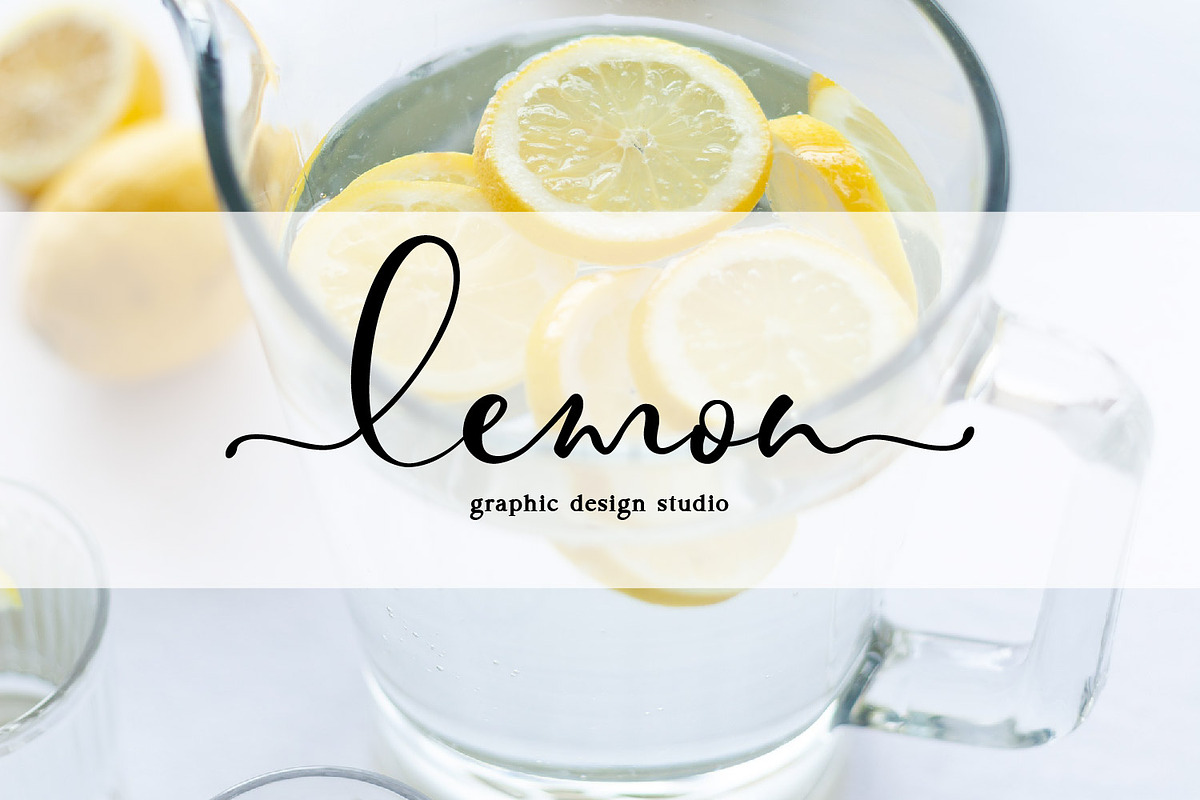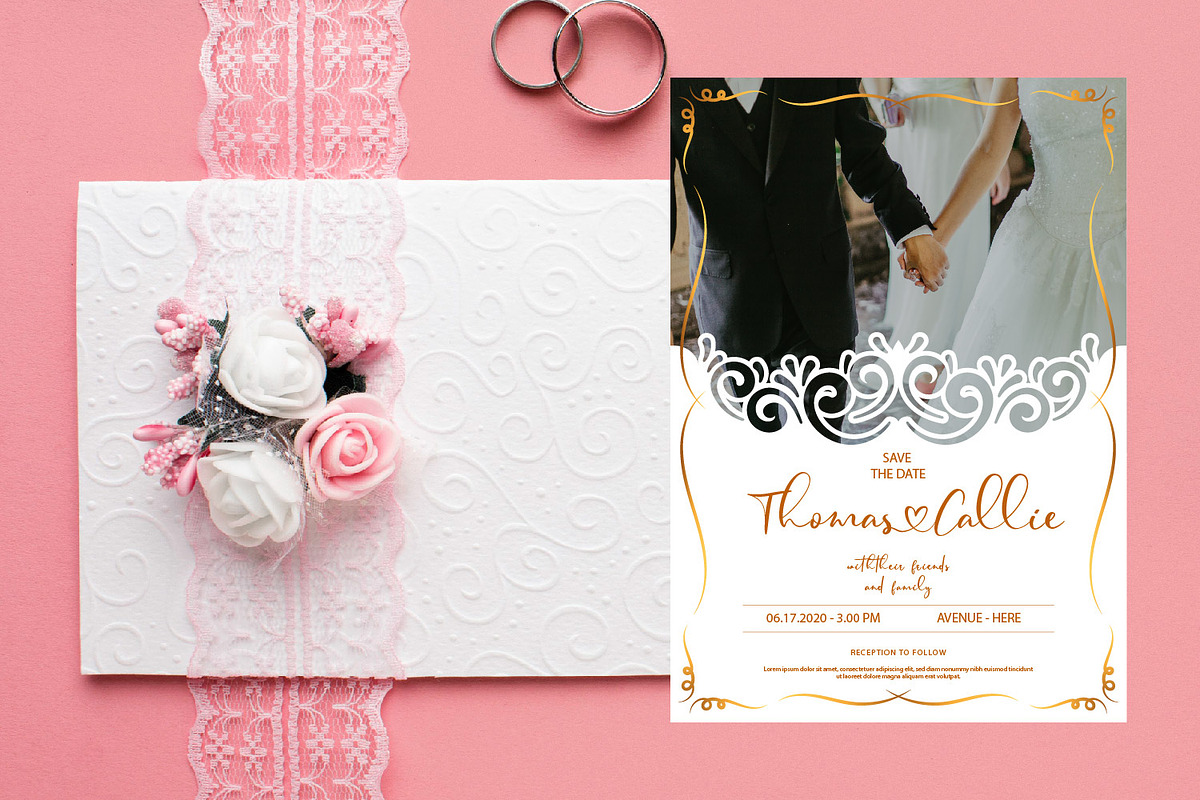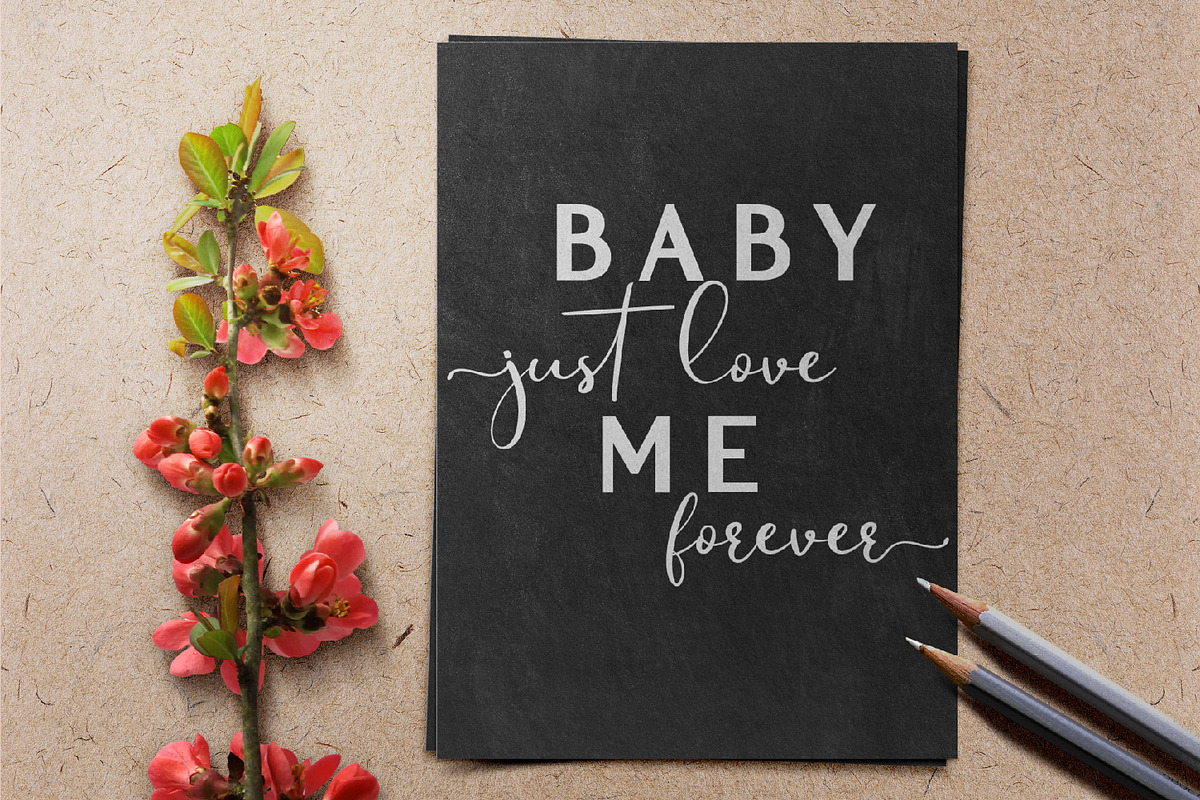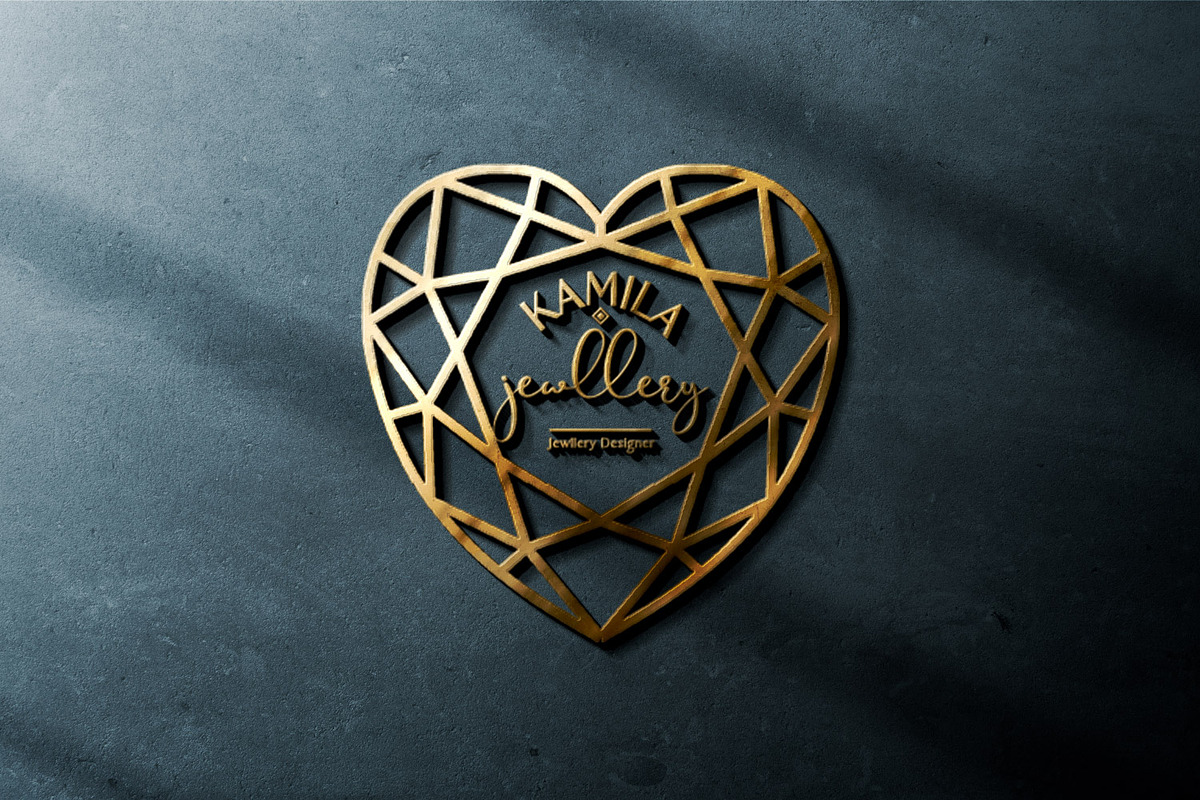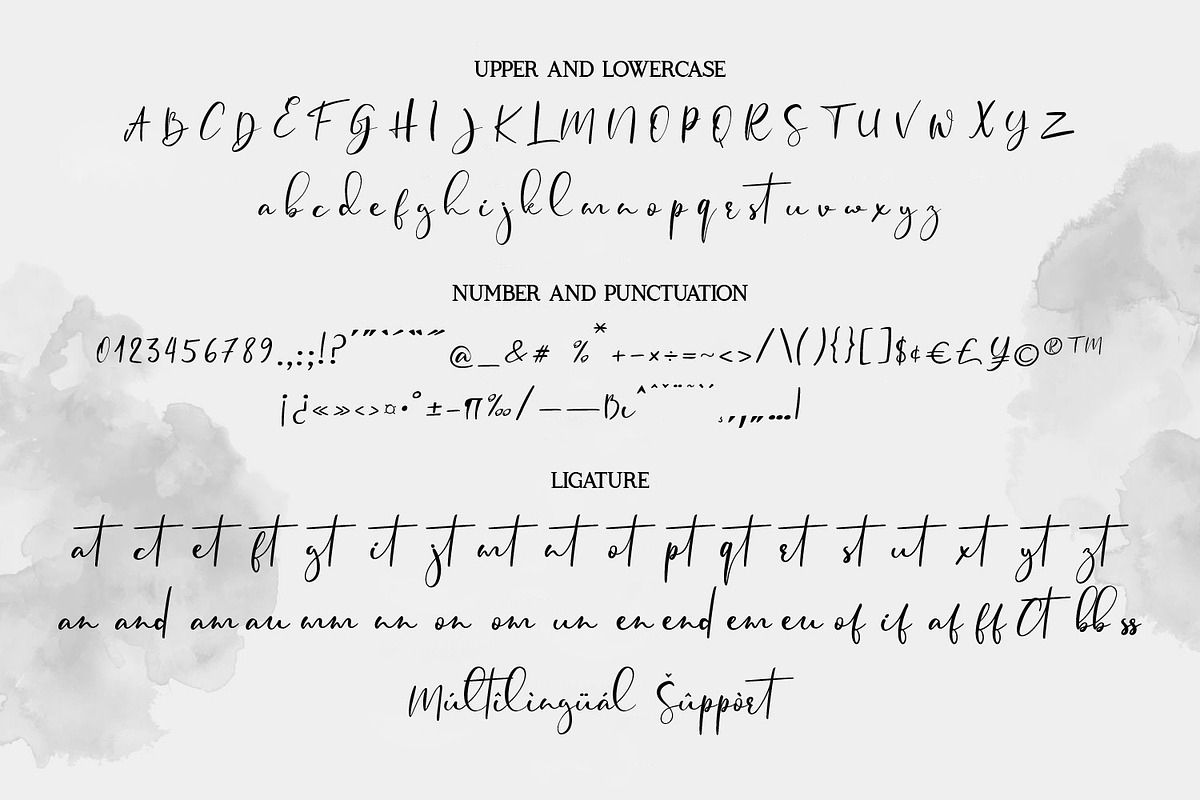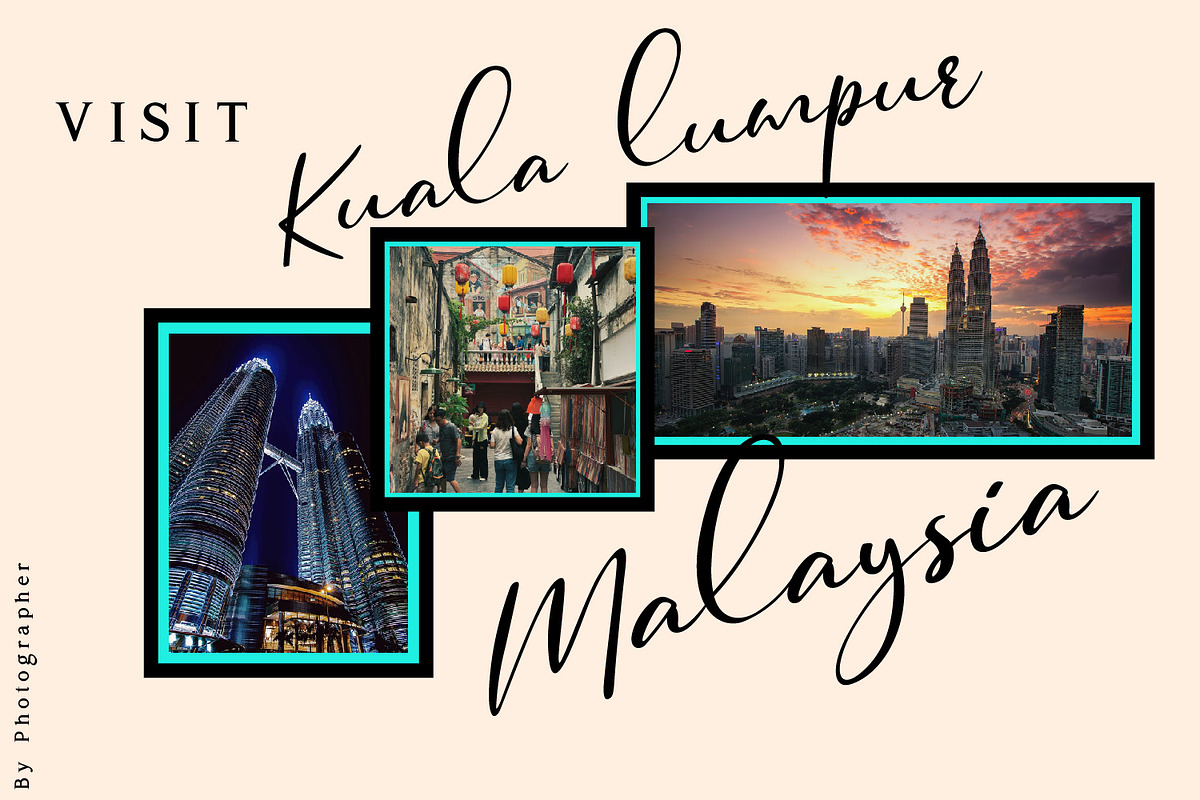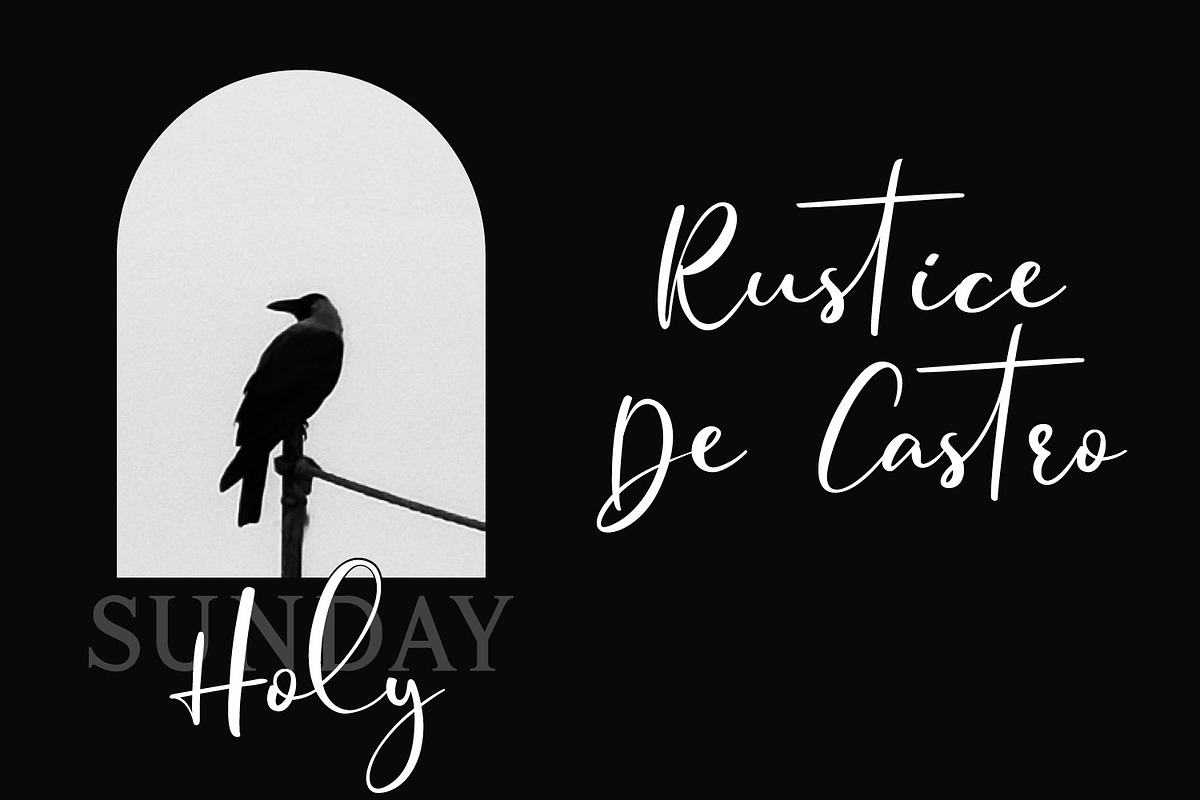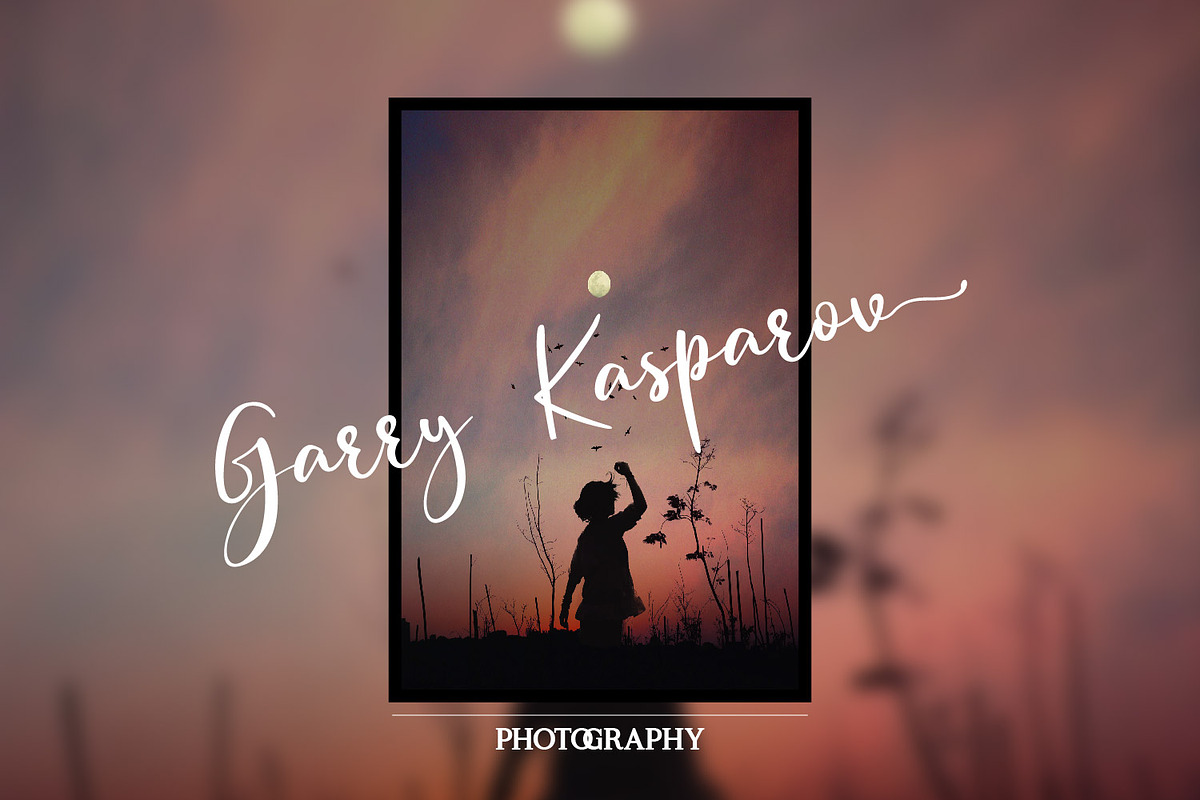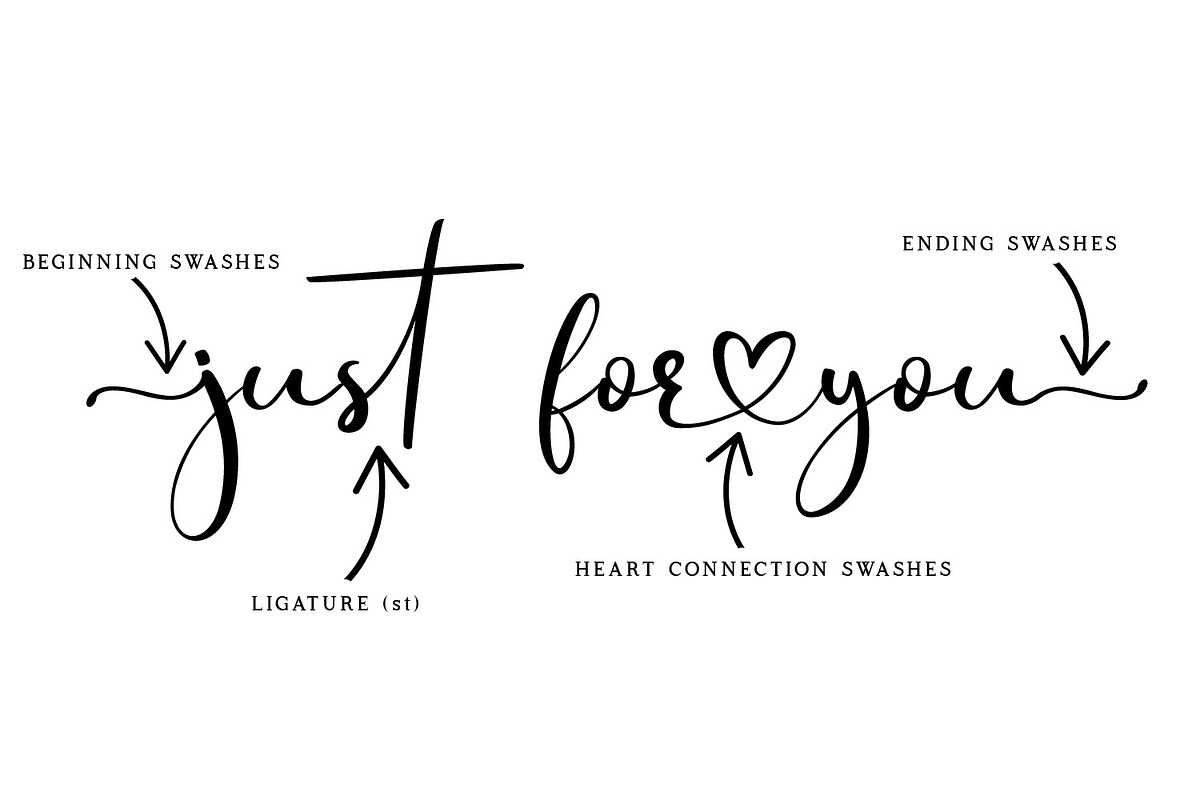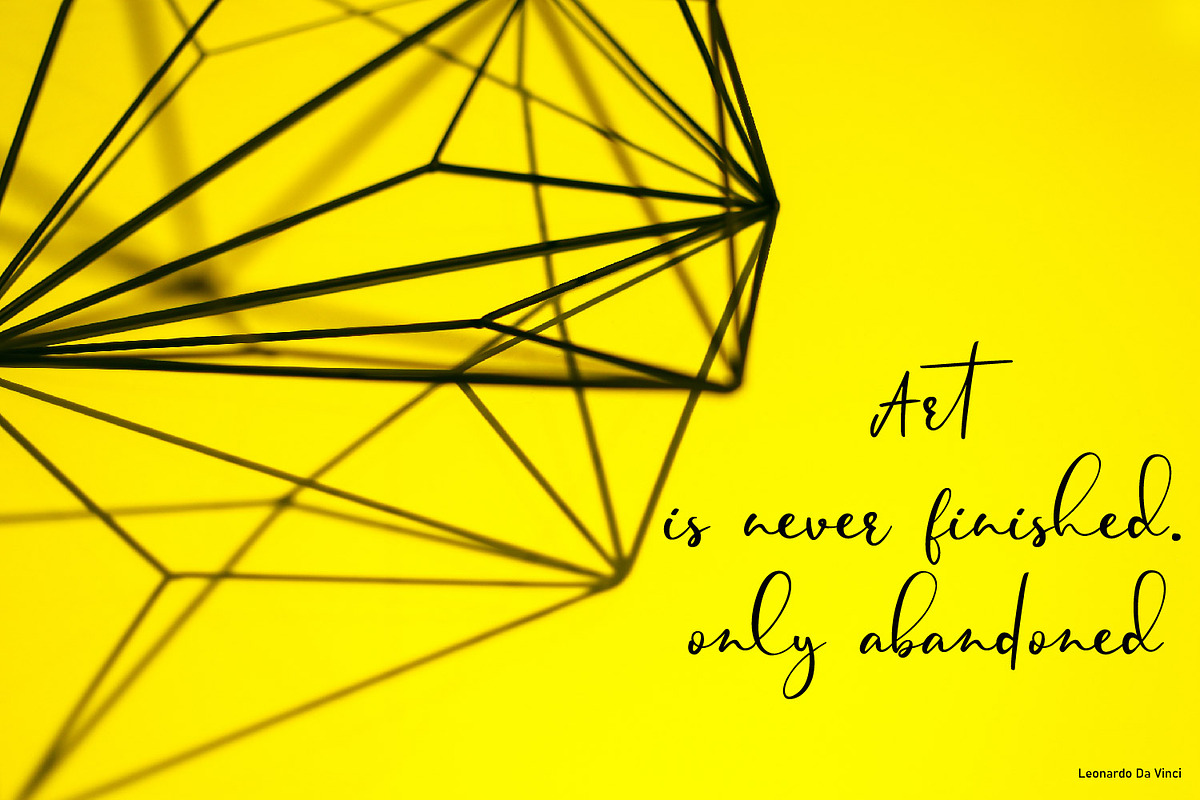
Fansthome | Signature effect
Fansthome is a modern Calligraphy font with magical Signature effect. it is perfect for creating signature logos and watermarks for photography studio or wedding invitation, best for initial or branding logo signature . Fansthome includes full set of beautiful hand lettered uppercase and lowercase letters, numerals, a large range of punctuation and ligatures. All lowercase letters include beginning and ending swashes, giving realistic hand-lettered style.
- lowercase beginning swashes: (-a)
- lowercase connecting & ending heart swashes: (b&a) or (a&)
- lowercase ending swashes: (k-)
Main Features:
- Uppercase & Lowercase letters
- Punctuation and special characters